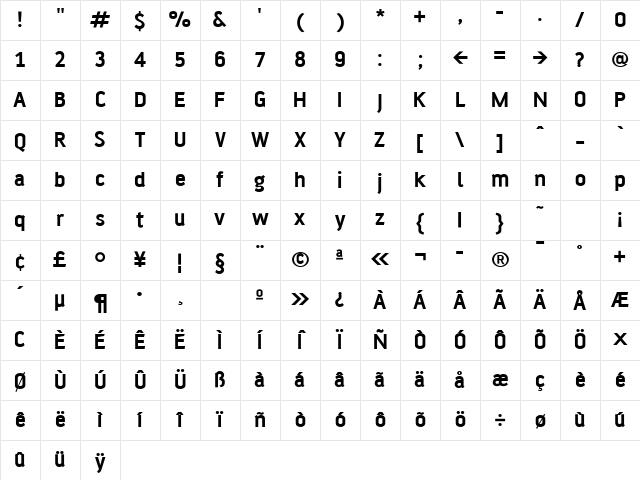
AFBattersea Bold Free Font
AFBattersea Bold
Foundry: Copr. Henrik Kubel/,
AFBattersea Family
Design Context for AFBattersea
AFBattersea is a composed and adaptable typeface that performs quietly and consistently across a wide range of design contexts. Its bold stroke weight gives it real presence on the page.
Who designed the AFBattersea Bold font?